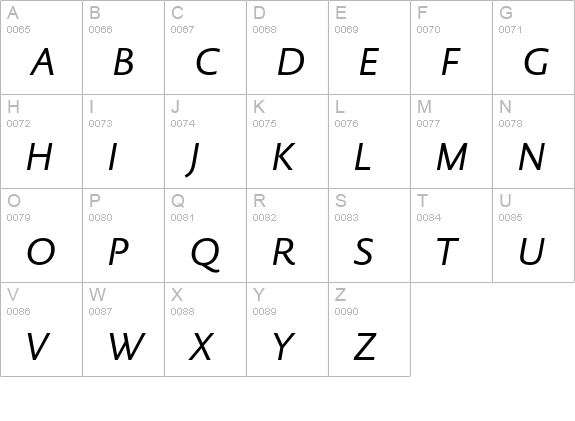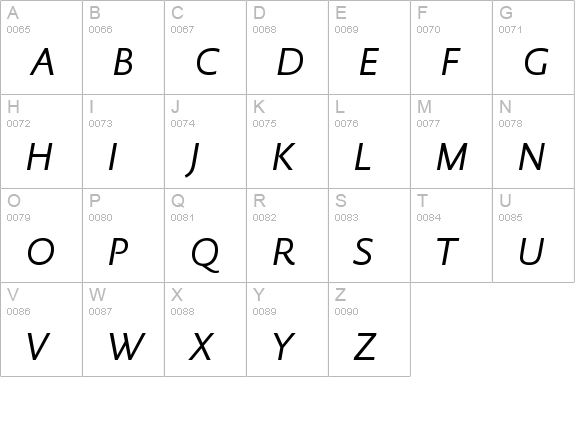
DTLDocumentaSansST-Italic is a distinctive, italic variant in the DTLDocumentaSansST typeface family \xE2\x80\x94 well suited to design and typography projects.
The DTL Documenta Sans ST Italic font is a sleek and modern typeface that exudes sophistication and elegance. Its italicized style adds a touch of flair to any design project, making it perfect for conveying a sense of style and professionalism. This versatile font is ideal for use in a wide range of applications, from branding and marketing materials to editorial design and web content. What sets DTL Documenta Sans ST Italic font apart is that it is available for free download at FontsMarket.com, making it easily accessible to designers and creatives looking to elevate their projects with a touch of class. With its clean lines, subtle curves, and graceful slant, this font is sure to make a statement and leave a lasting impression on any audience. Upgrade your design game today with the effortlessly stylish DTL Documenta Sans ST Italic font.